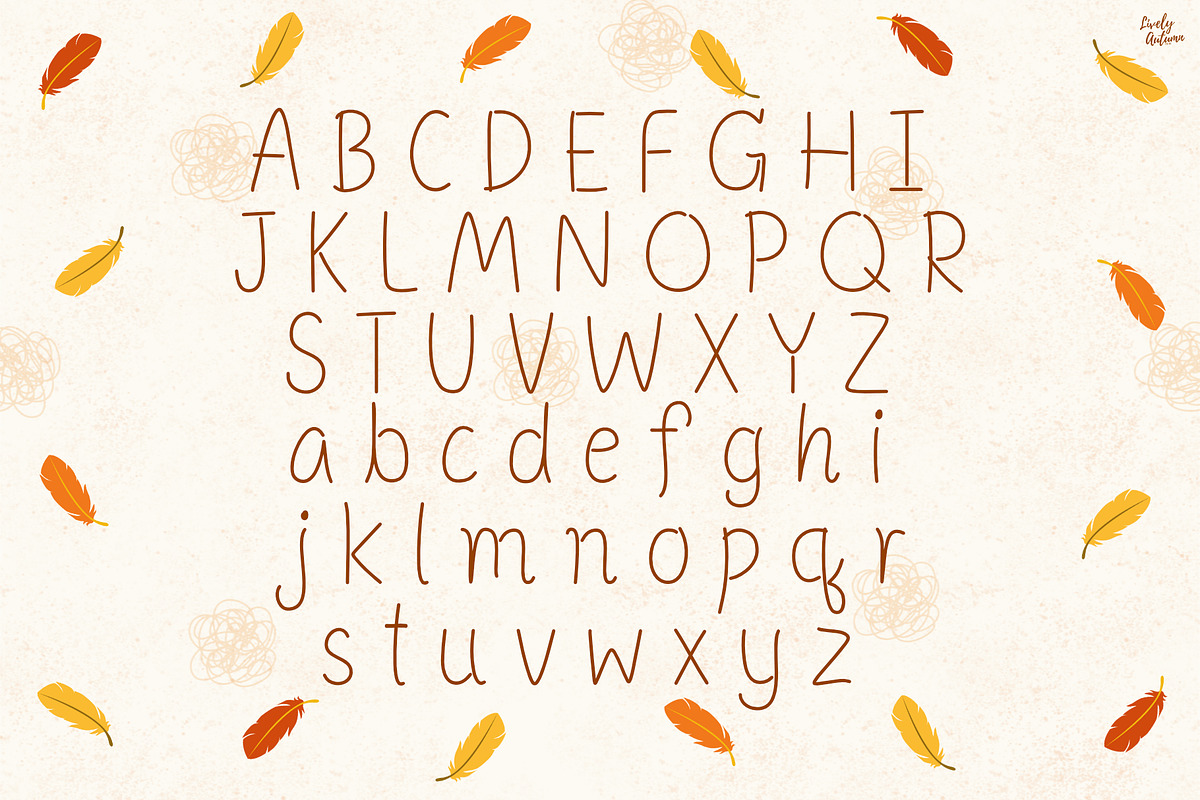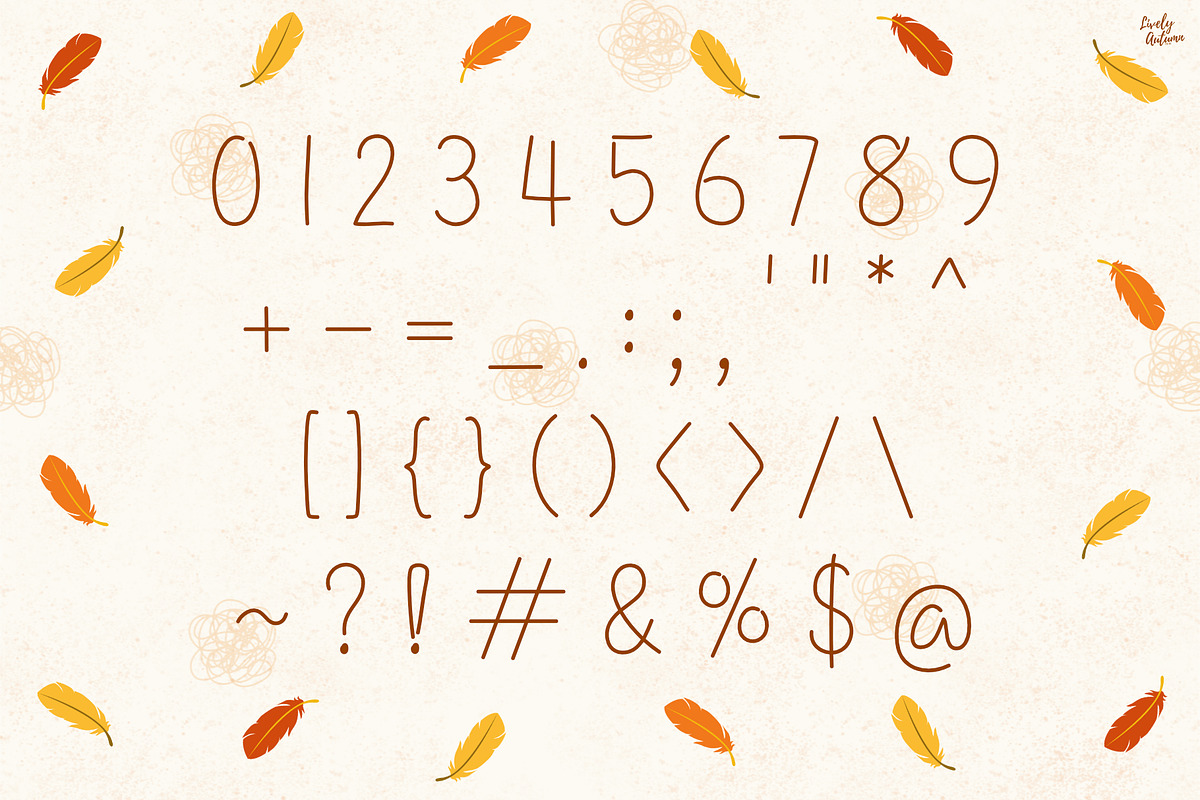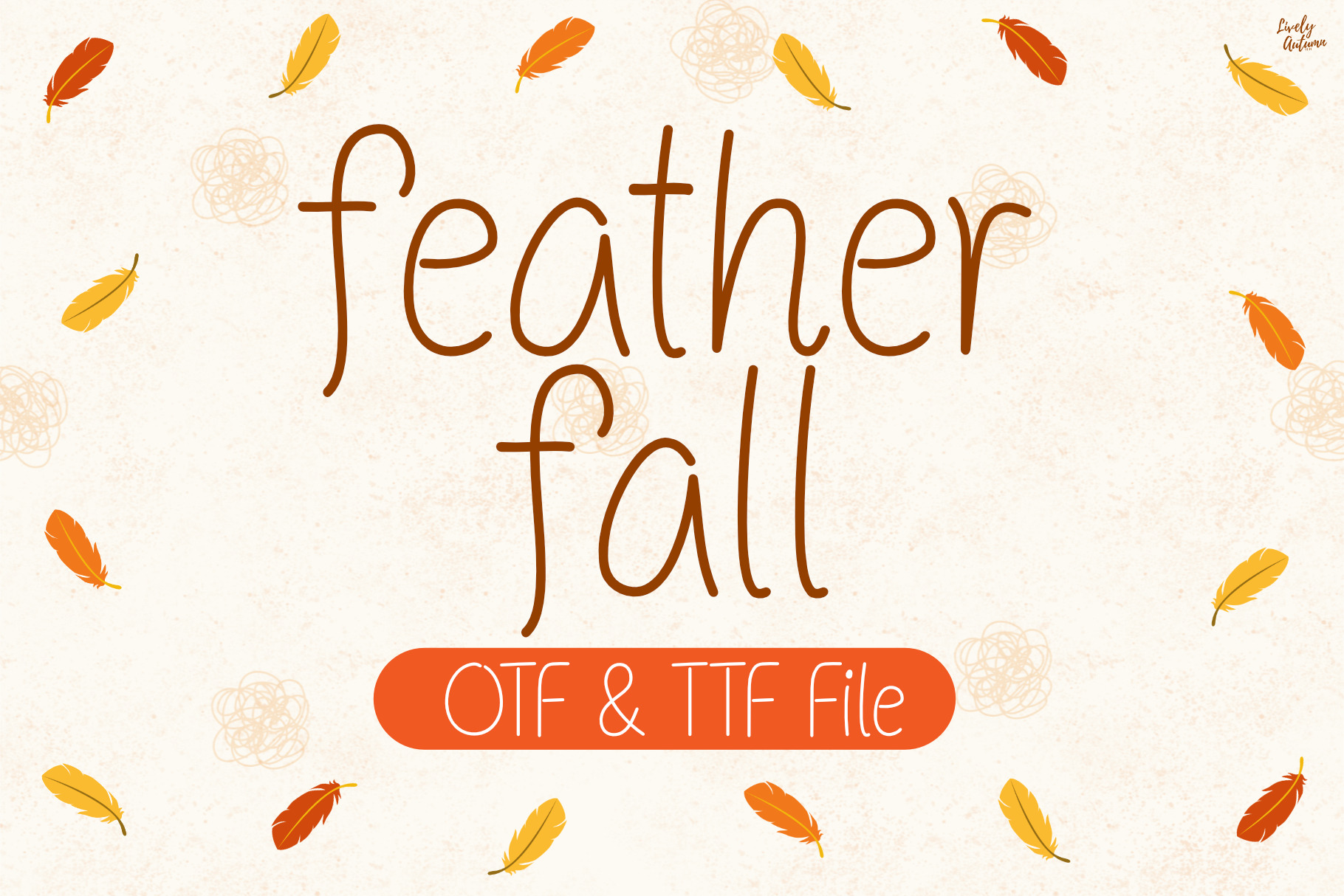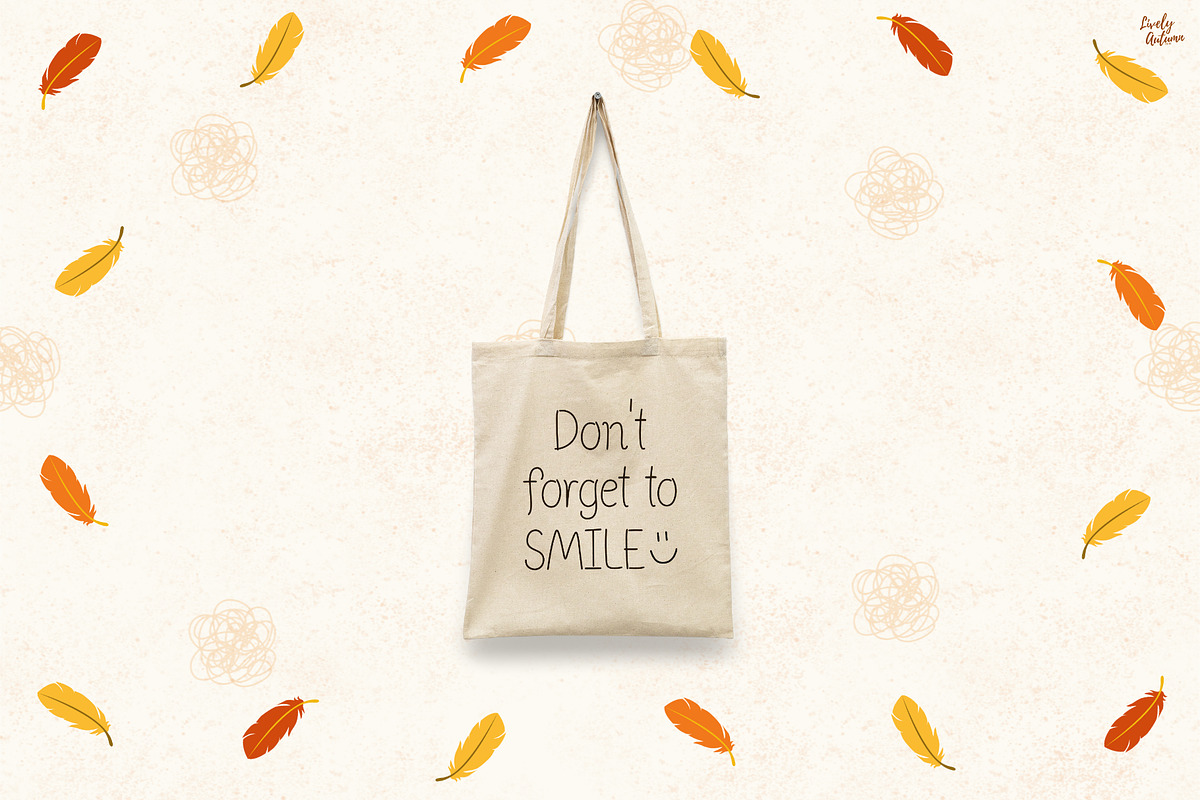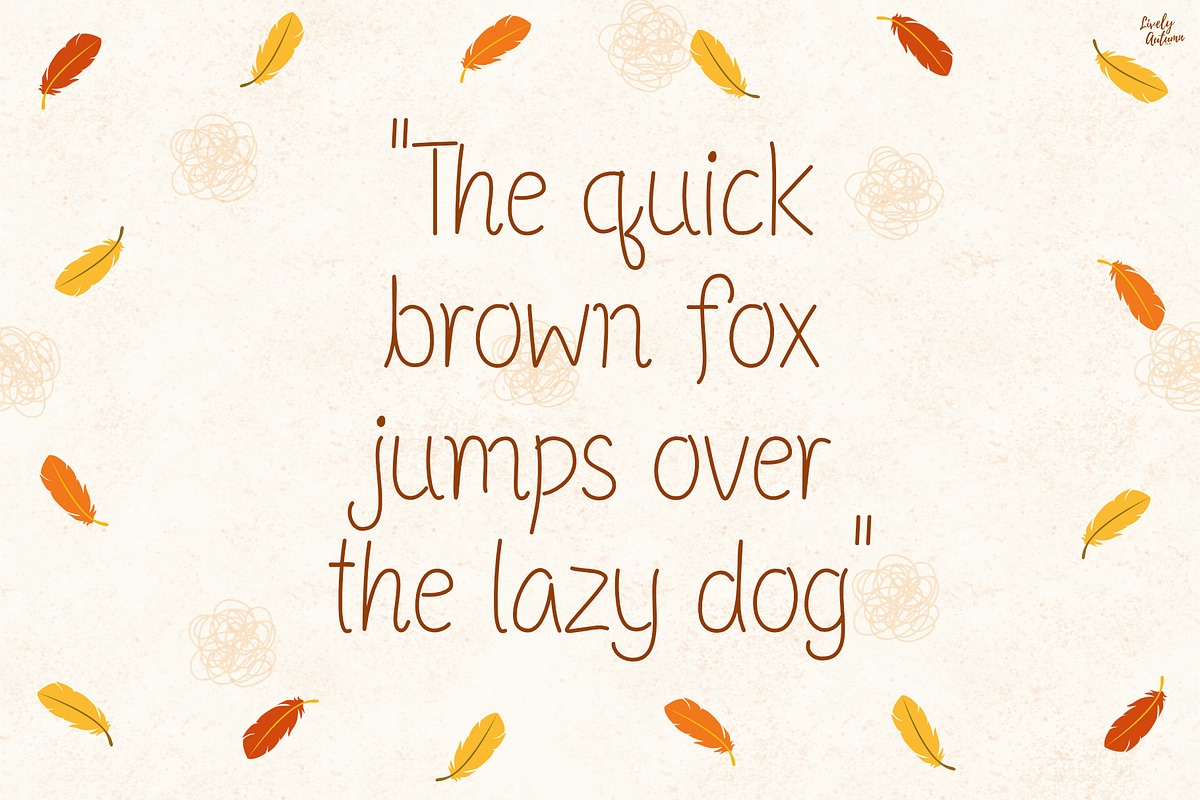
Featherfall | Handwriting font
Featherfall is a cute thin handwritten font. Perfect for your personal projects and various projects. From invitations to posters, social media graphics, journals, stickers and much more.
- Font includes: uppercase, lowercase, numbers, and punctuation